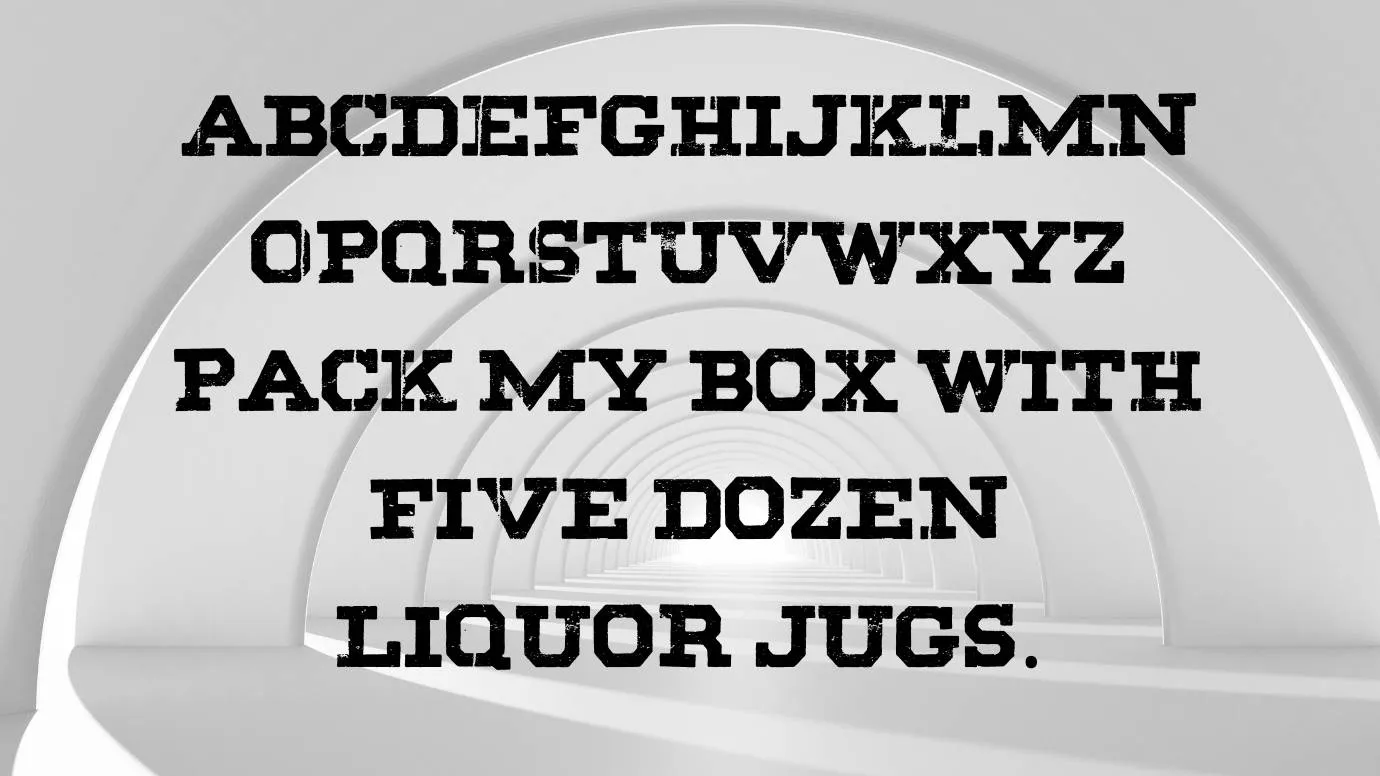
Hi viewers! Today, We are going to introduce another display font known as Black Font. This font has bold condensed letters that consist of alphabets, uppercase letters, lowercase letters, and special characters. Billy Argel Fonts is the founder of this font which was created in 2010 for the first time.
Black Font